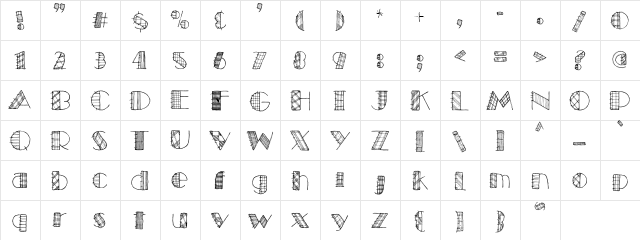
PC Sewing Scraps Regular
Design Context for PC Sewing Scraps Typeface
PC Sewing Scraps is a composed and adaptable typeface that performs quietly and consistently across a wide range of design contexts.